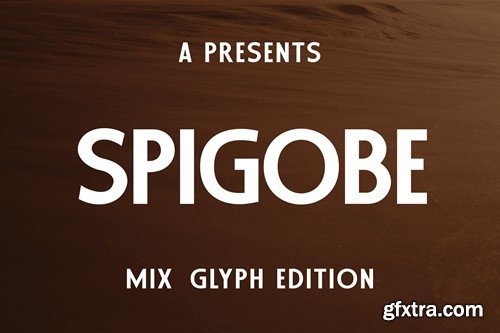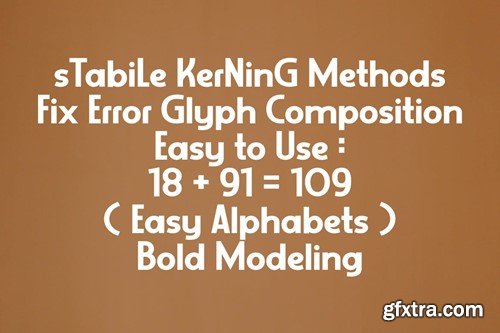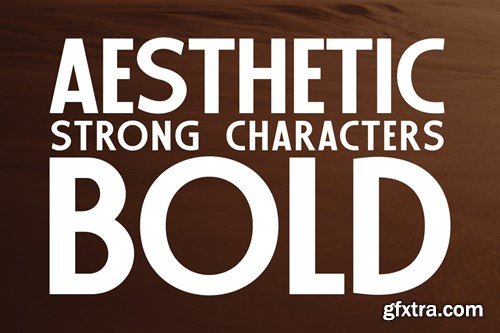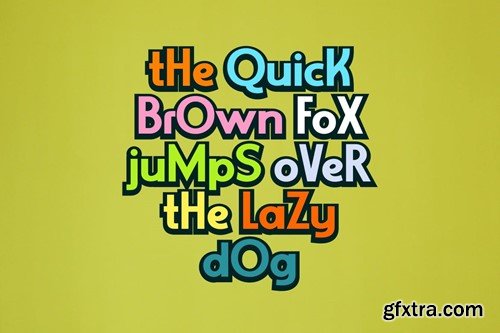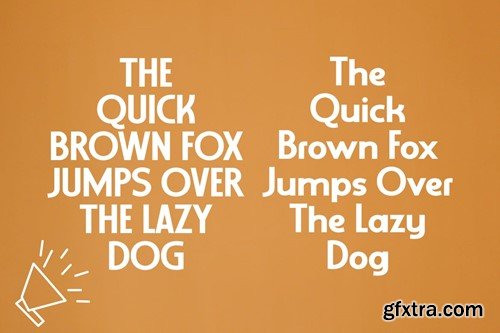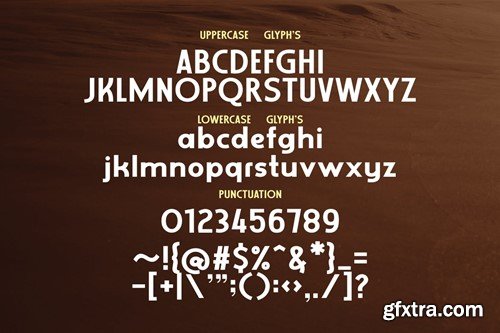
Spigobe Font
Introducing the diverse charm of the Versatile Font, tailored to accommodate your expressive needs. Whether looking for elegance or desiring an aesthetic appeal, Versatile stands out. Emanating joyful vibes with its cheerful hues, it's a vibrant playground for your creative projects. Navigate your artistic journey guided by your unique voice, as Versatile Font affirms, your choice is your creative policy. Immerse in this Font's dynamic features and let your messaging shine. Appreciation for your time. available in .OTF & .TTF Formats.